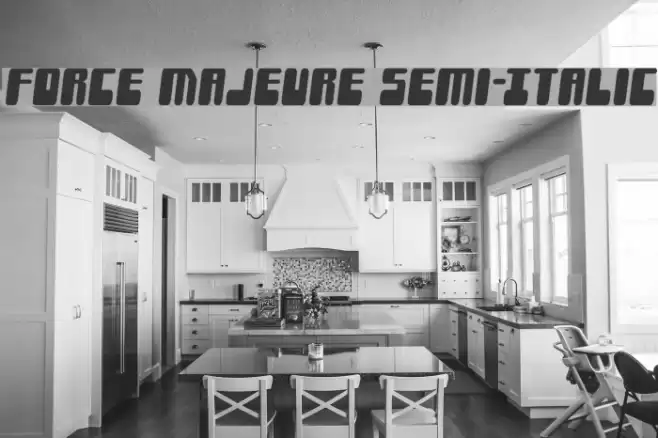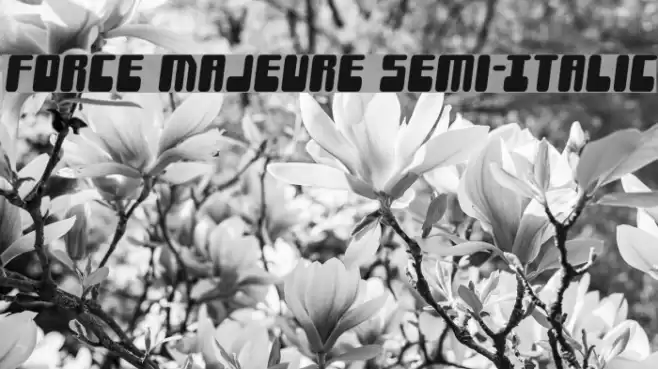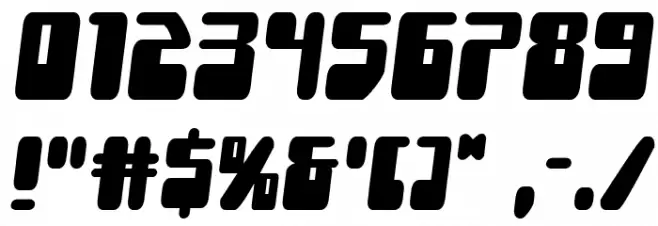
Force Majeure Semi-Italic Font
Force Majeure Semi-Italic Description
This font features a bold, semi-italic style with a modern and dynamic appearance. The characters are designed with a unique geometric structure, combining rounded edges with sharp angles, creating a visually striking effect. The uppercase and lowercase letters maintain a consistent height, contributing to a uniform look across the text. The numerals and special characters follow the same design principles, ensuring coherence throughout. The font's thick strokes and minimal contrast make it highly legible, even at smaller sizes. Its distinctive style is suitable for projects that require a strong visual impact.
A bold, semi-italic font with geometric shapes and minimal contrast, ideal for impactful designs from Fancy fonts.
- Proposed Projects: This font is perfect for branding, advertising, poster design, and any project that requires a bold and modern aesthetic.